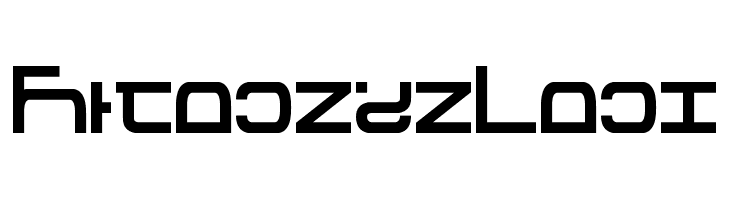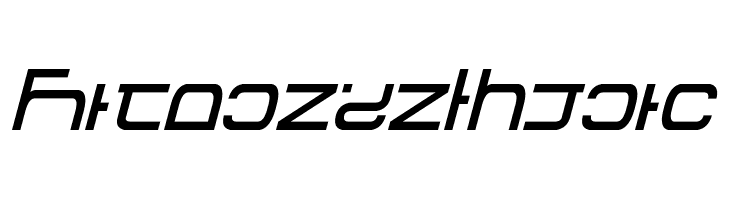
A bold, geometric font with a futuristic and modern design.
A bold, italicized font with a futuristic and angular design.
A modern, italic font with a futuristic and dynamic style.